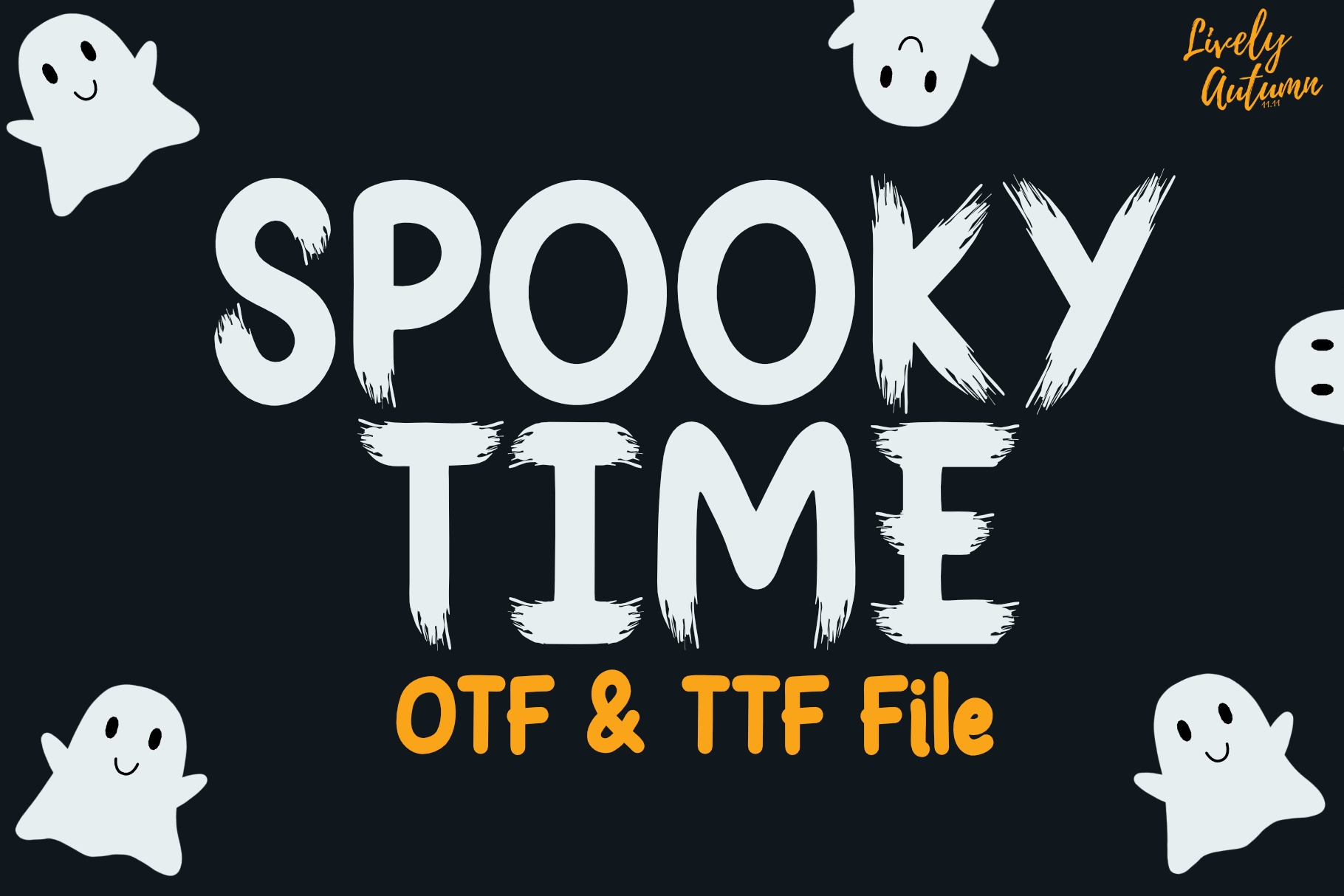
Spooky time | Sans serif font
Spooky Time Font is a sans serif font with a brush effect at the head and tail of each letter. Perfect for your Halloween theme project, personal projects, and various projects. From invitations to posters, social media graphics, journals, and much more.